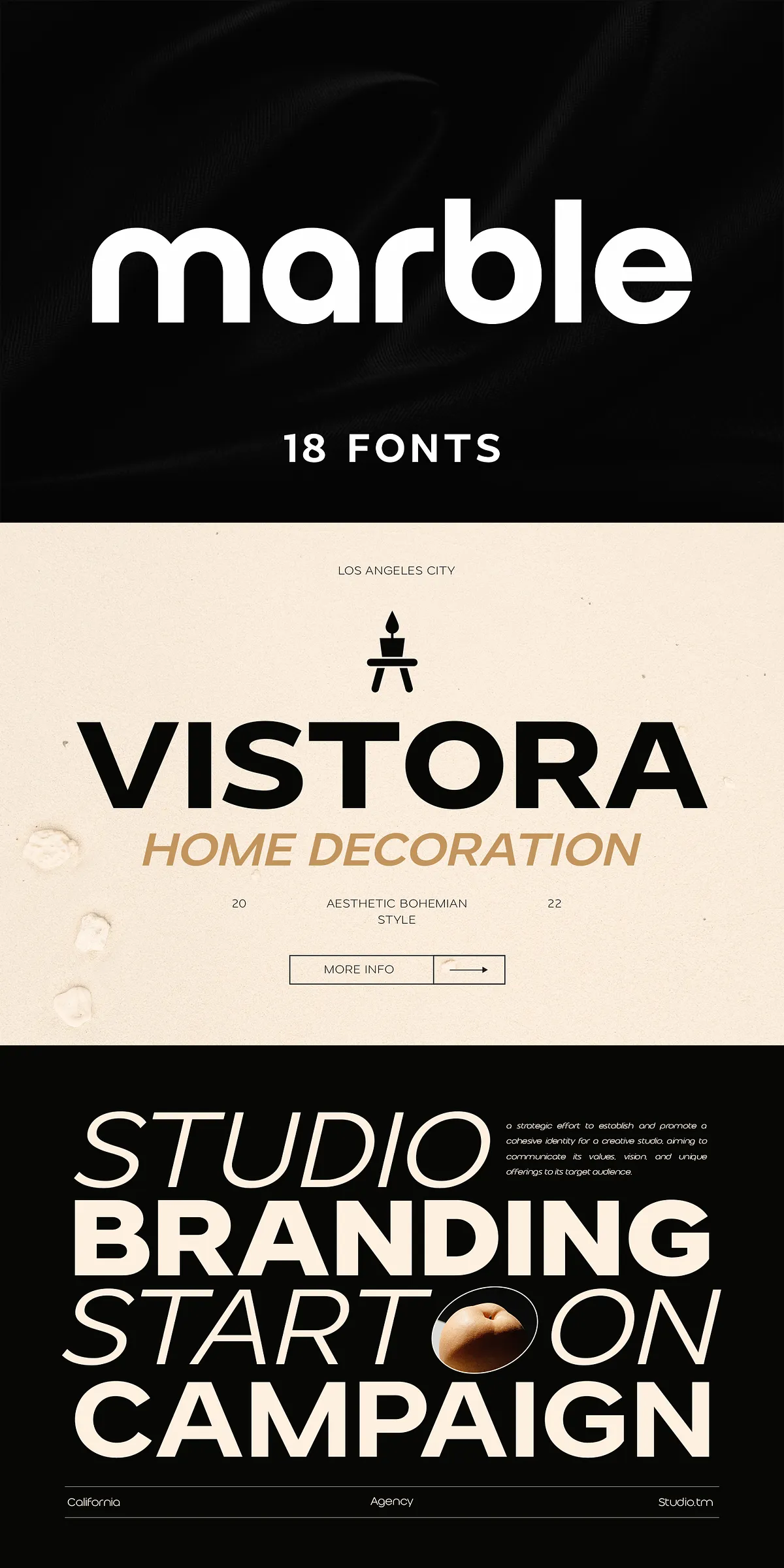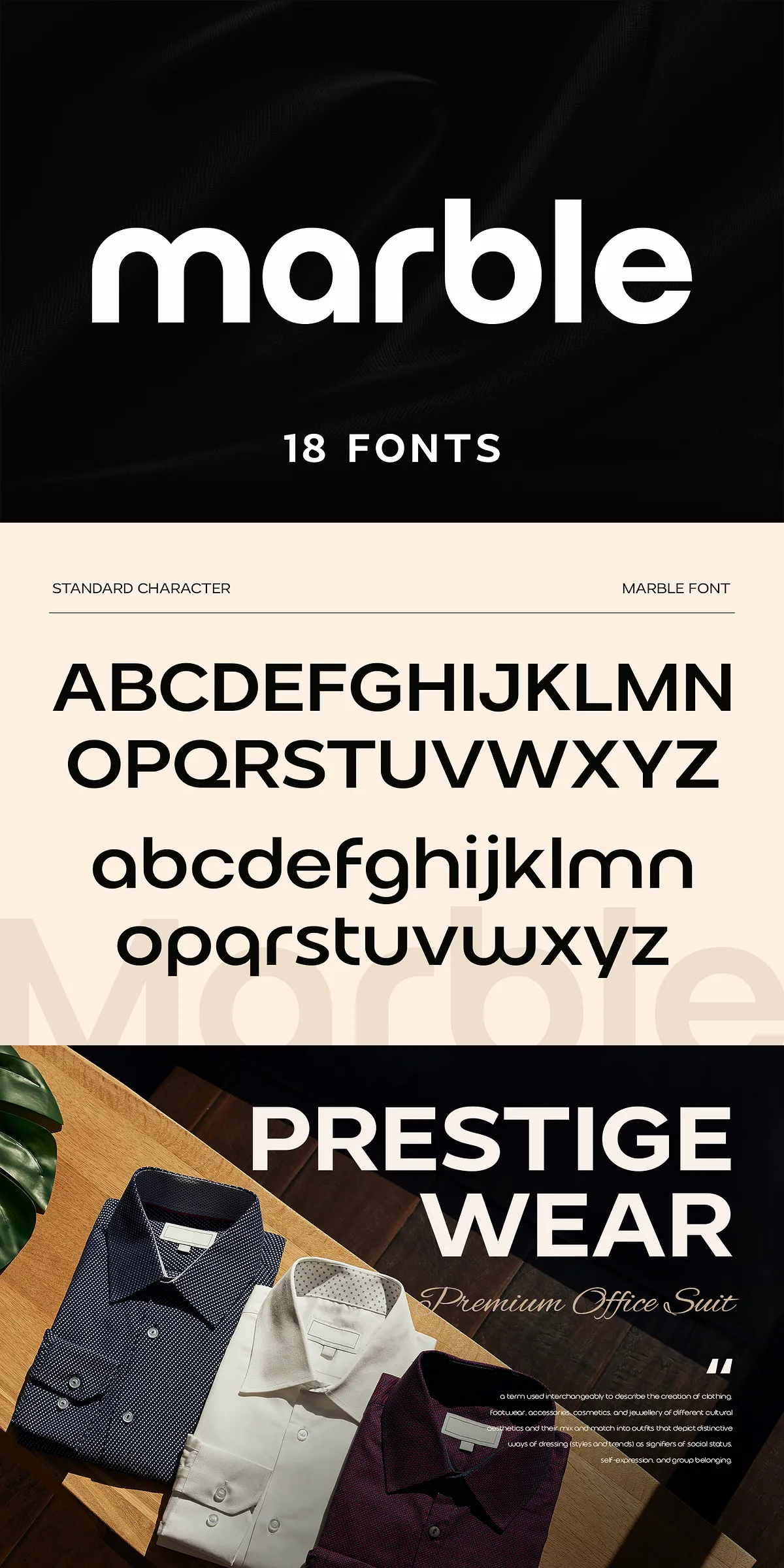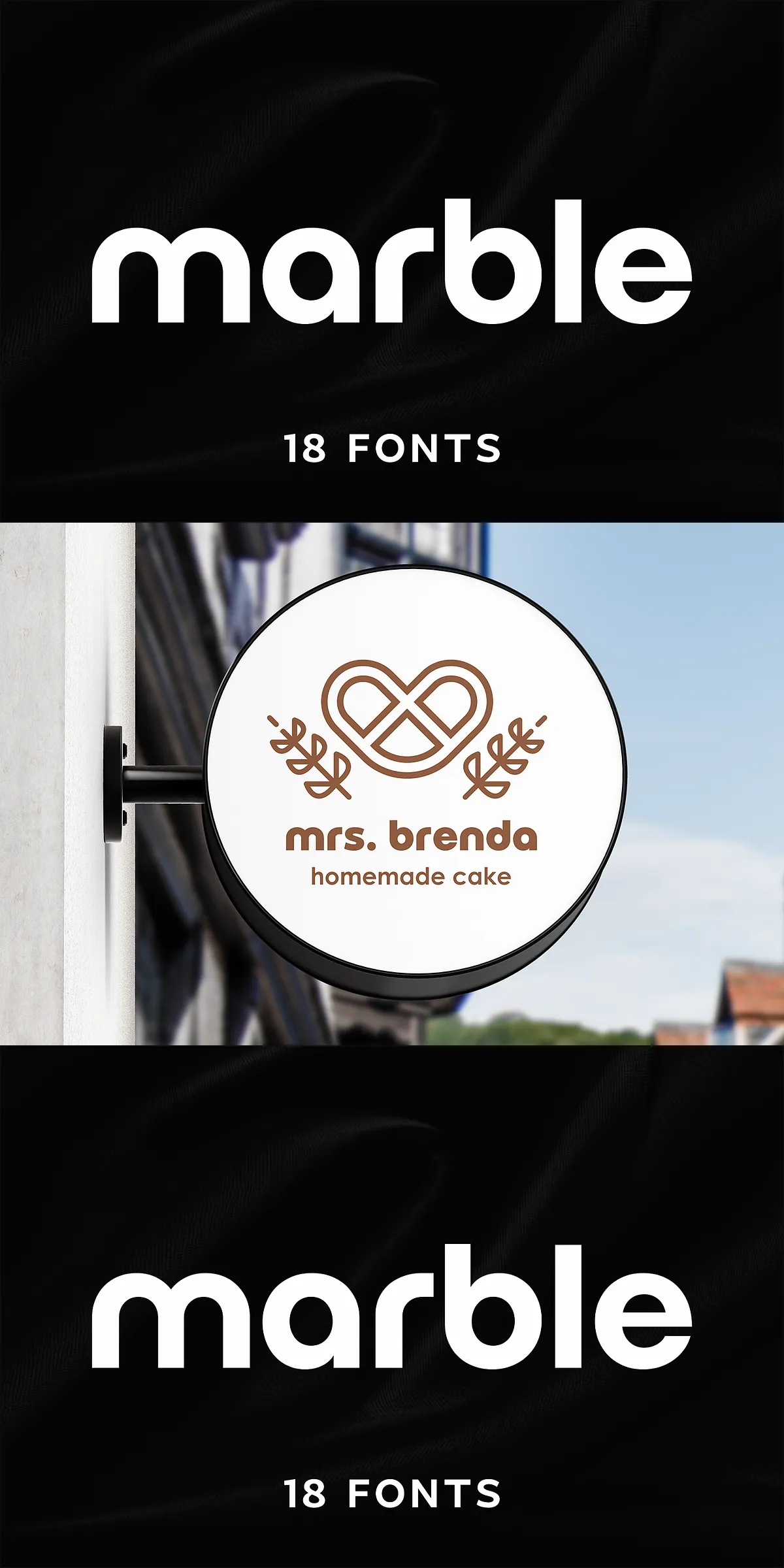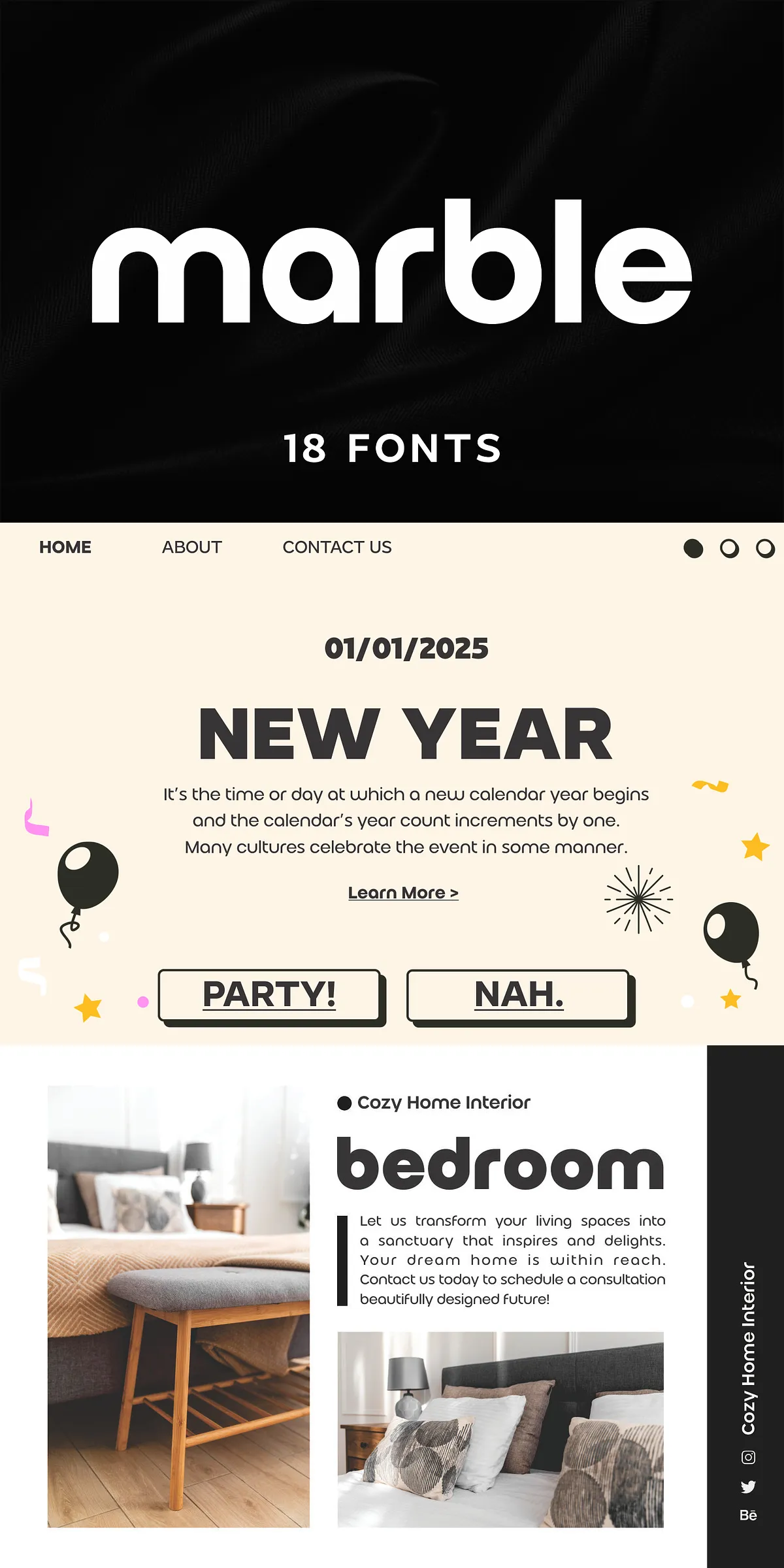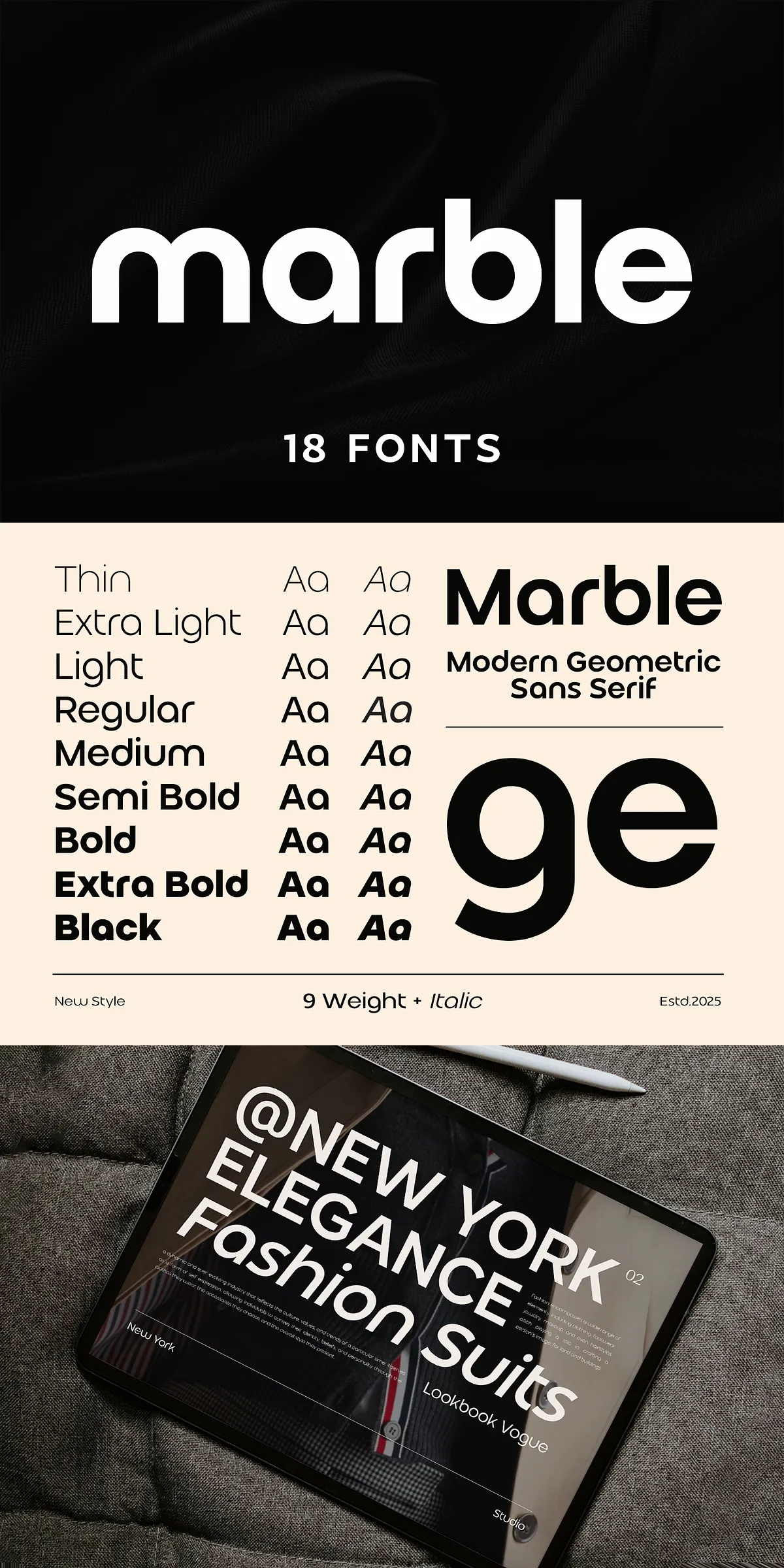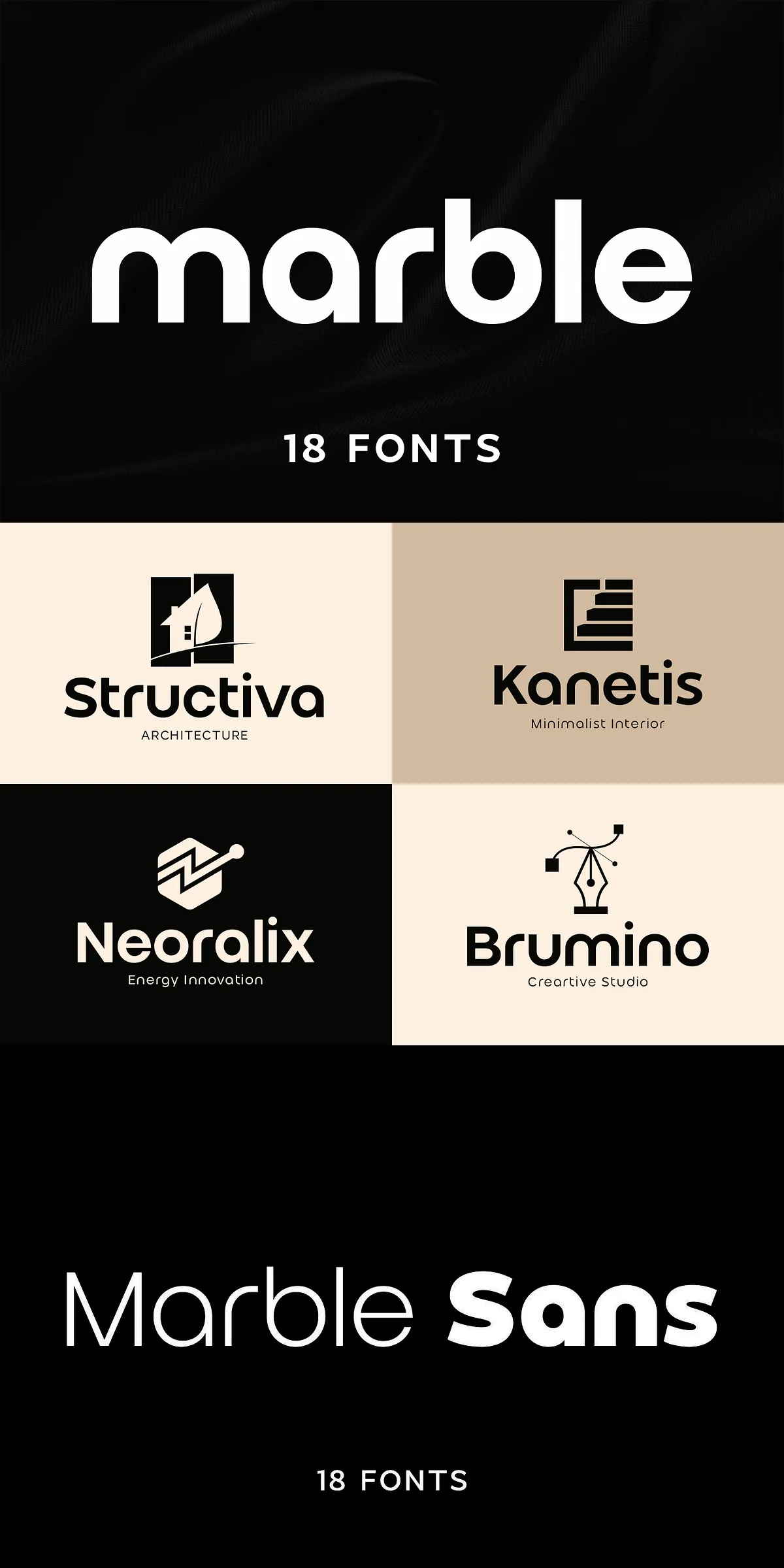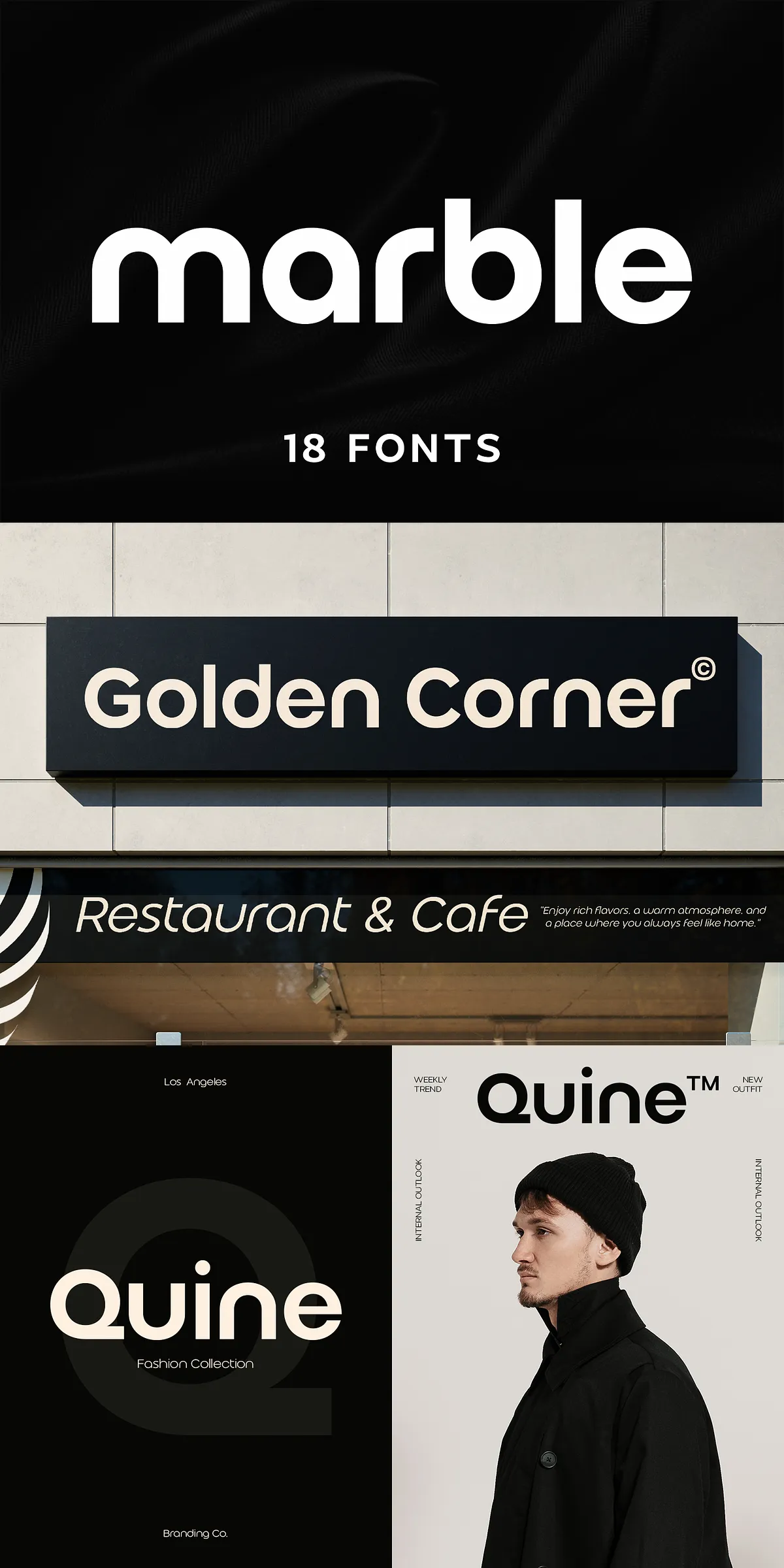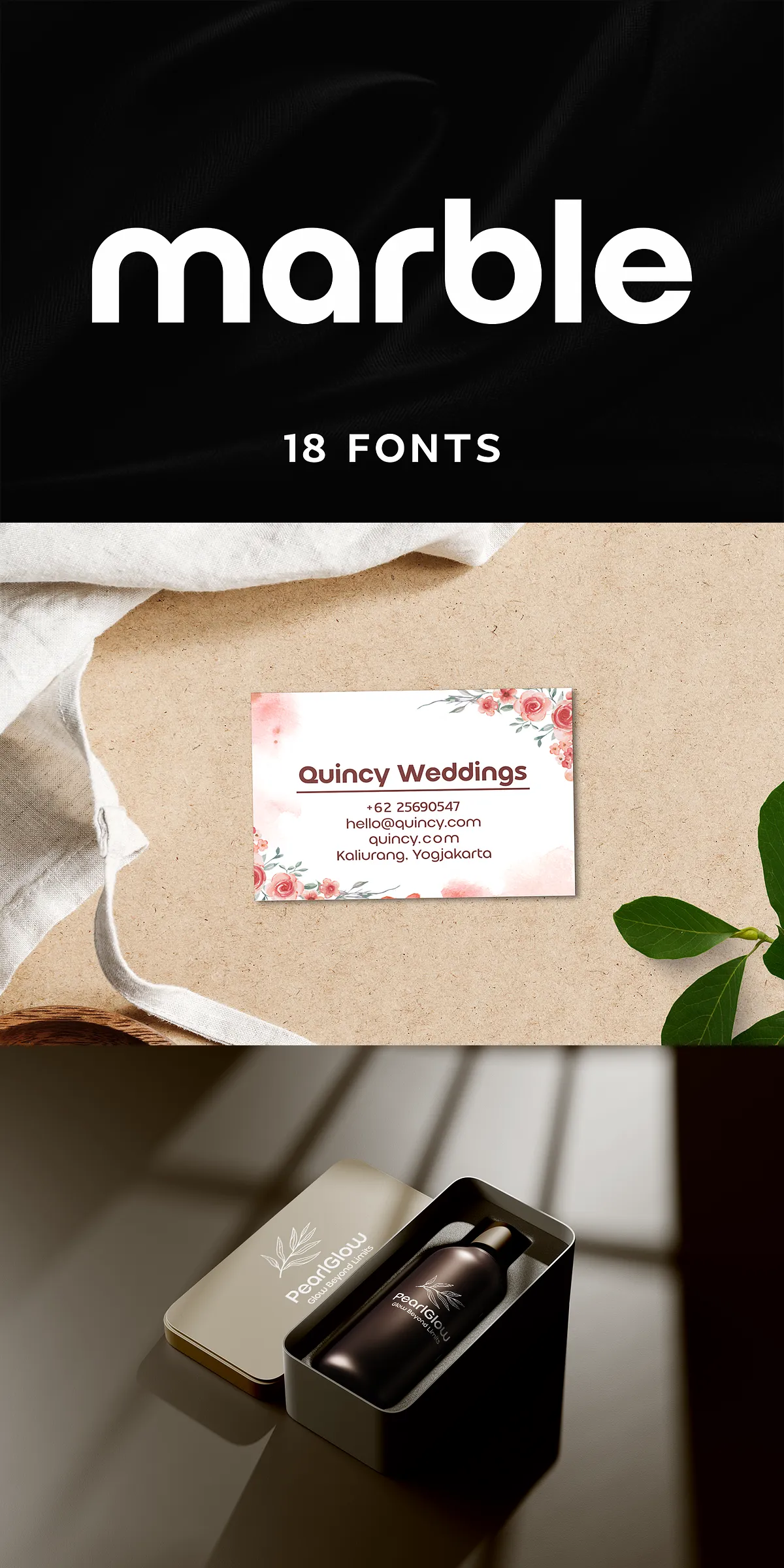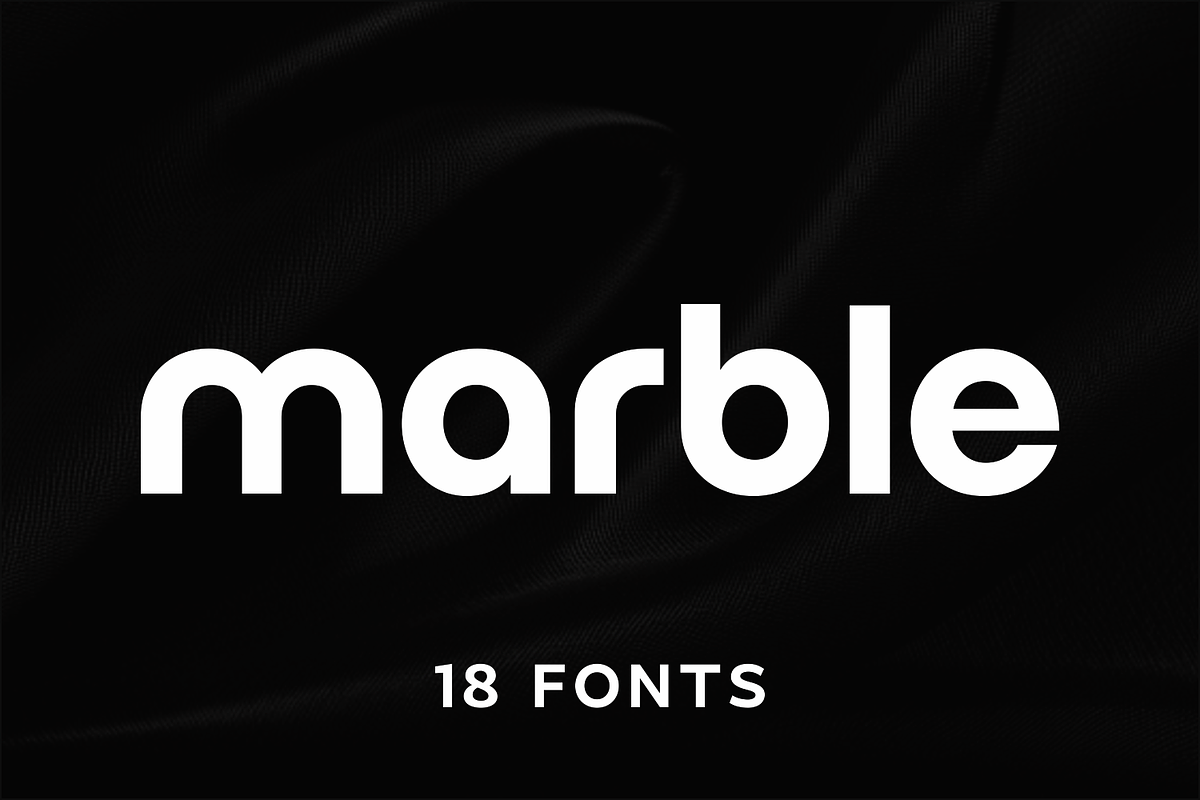
Transform your creative vision with Marble Font – a striking sans-serif display typeface engineered for maximum impact. Designed for those who demand precision, power, and modern elegance, Marble redefines what a display font can be. With geometrically flawless letterforms, razor-sharp edges, and a high x-height that commands attention, it delivers a clean, futuristic aesthetic with undeniable presence.
No longer settle for generic typography. Marble injects every project with a sense of purpose, sophistication, and visual authority. Whether you’re building a brand identity, crafting a bold logo, designing luxury packaging, or developing a high-end editorial layout, Marble ensures your message is not just seen — it’s remembered.
Why Marble Font Stands Out in a Crowded Design Landscape
Marble isn’t just another font — it’s a design philosophy. Every curve, stroke, and spacing decision reflects a deep commitment to balance, clarity, and contemporary aesthetics. This isn’t about decoration. It’s about performance. Let’s break down what makes Marble the ideal choice for elite-level design projects.
Geometric Precision Meets Modern Sophistication
At its core, Marble is a modern neo-grotesk — rooted in classic humanist proportions but elevated through sharp geometric clarity. The letterforms are clean, symmetrical, and meticulously engineered, creating a sleek and polished appearance that feels instantly contemporary. The minimal stroke contrast enhances readability at large sizes while maintaining a high level of visual intensity.
From the bold, angular ‘M’ to the clean, minimalist ‘I’, every character delivers consistent strength and elegance. This uniformity is not accidental — it’s the result of intentional design intent, ensuring seamless integration across diverse applications.
Built for Impact: The Power of High x-Height and Wide Letter Spacing
The high x-height of Marble maximizes legibility and visual weight without sacrificing grace. This feature is especially powerful in headings, headlines, and titles where clarity and boldness are essential. Your message doesn’t just appear — it dominates the space.
Complementing this is a masterfully balanced letter spacing. The kerning is hand-tuned to prevent visual fatigue and ensure perfect alignment, even in complex text blocks. Whether you’re using it in a single word or a full title, Marble maintains a harmonious, professional look from start to finish.
Where Marble Transforms Designs: Real-World Applications
Marble isn’t designed for body text — it’s built for moments that demand dominance. Here’s where it truly shines, turning ideas into unforgettable visual experiences.
1. Logo & Brand Identity Systems
Make your brand instantly recognizable. Use Marble for your core logo, tagline, or wordmark to project confidence, modernity, and exclusivity. It’s ideal for fashion houses, tech startups, creative agencies, and luxury product lines seeking a sleek, minimalist aesthetic with bold personality.
2. Packaging & Product Design
Stand out on shelves and online. Marble adds a premium, high-fidelity finish to packaging labels, cosmetic boxes, and digital product renders. Its clean, sharp presence signals quality and innovation — perfect for premium skincare, lifestyle products, and designer goods.
3. Editorial & Print Layouts
Bring authority to your magazine spreads, lookbooks, or annual reports. Use Marble as a headline font to draw readers into key sections. Its modern elegance pairs beautifully with negative space and high-contrast photography, elevating editorial design to gallery-level sophistication.
4. Web & UI Design
Power your hero sections, landing pages, and call-to-action banners with Marble. Its scalability and clarity at large sizes make it perfect for digital interfaces where first impressions matter. Use it in headings and buttons to create a seamless, modern user experience.
5. Advertising & Signage
Stop traffic. Command attention. Whether on digital banners, outdoor billboards, or event signage, Marble cuts through noise with unwavering clarity. Its bold structure ensures your message lands, even at a distance.
Pro Tips: Unlocking the Full Power of Marble Font
To maximize Marble’s impact, follow these expert guidelines:
- Use at large sizes only — Marble reaches its full potential at 36pt and above. Small text loses its strength and character.
- Limit to one font weight per design — Let its power remain undiluted. Avoid mixing weights unless you’re crafting a deliberate visual hierarchy.
- Pair with minimal backgrounds — White, grey, or black backgrounds allow Marble to stand alone with maximum clarity.
- Use sparingly — One bold headline with Marble is more powerful than a page full of it.
- Test print quality — For physical prints, ensure your printer supports high-contrast, thin stroke reproduction to preserve the font’s sharpness.
Step Into the Future of Typography
Marble Font isn’t just a tool — it’s a creative accelerant. It empowers designers to express bold ideas with clean, confident lines and uncompromising style.